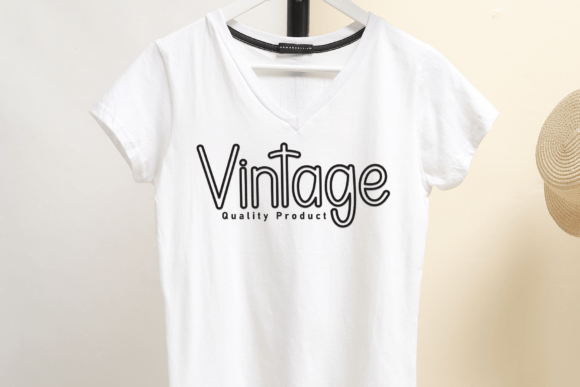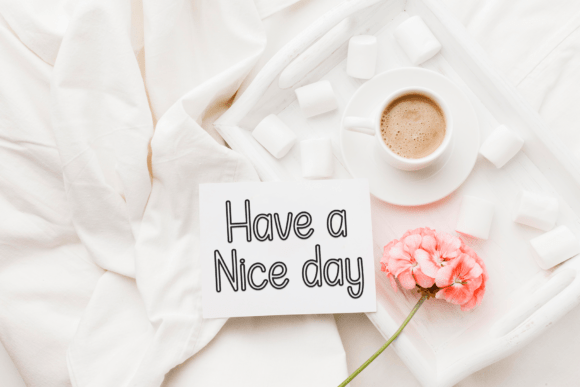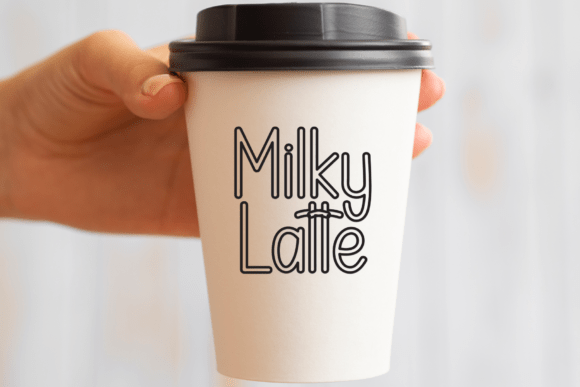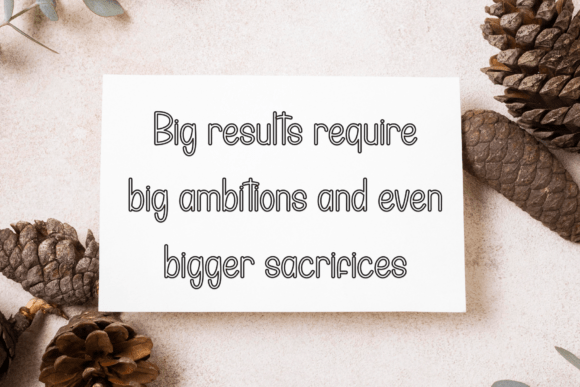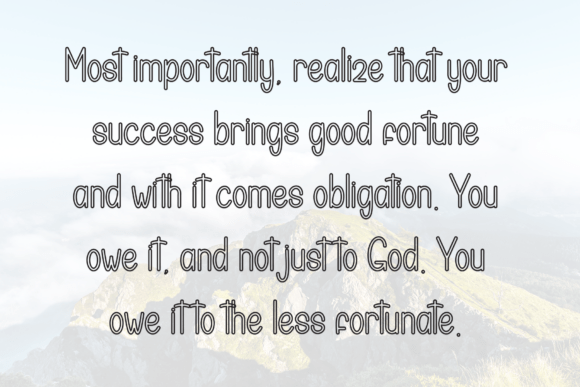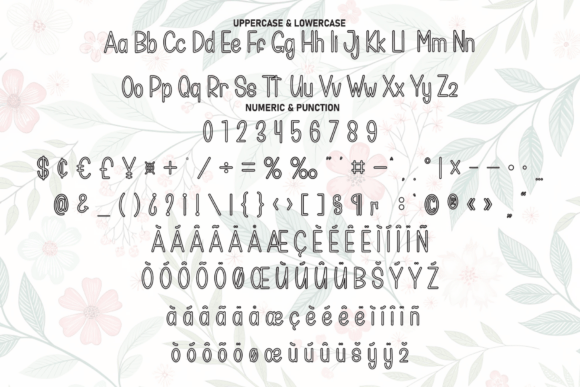
Beautiful Alphabet Font: Adding a Touch of Whimsy to Your Designs
Are you tired of using the same old fonts in your designs? Look no further! Our beautiful alphabet font is here to add a touch of whimsy and charm to your creations. Introducing the cheerful warmth of our delightful, handwritten display font, perfect for wedding invites, greeting cards, and any other design that needs a playful and joyous touch.
Handwritten fonts have a way of adding a personal touch to any design. They evoke feelings of warmth, friendliness, and approachability. Our beautiful alphabet font is no exception. With its stylishly sweet personality shining through every curve and stroke, this font is sure to elevate your artistry and leave a memorable impression on your audience.
Perfect for Wedding Invites and Greeting Cards
Wedding invites and greeting cards are special occasions that call for a font that is both elegant and playful. Our beautiful alphabet font is perfect for these occasions, adding a sprightly and friendly flair to your designs. Imagine sending out wedding invites that set the tone for a joyful and celebratory wedding, or greeting cards that bring a smile to the recipient’s face. This font is sure to make your designs stand out and leave a lasting impression.
Adding a Playful Touch to Your Designs
Our beautiful alphabet font is not just limited to wedding invites and greeting cards. It can be used in a variety of designs, from party invitations to social media graphics, to add a playful and joyous touch. The font’s whimsical charm is sure to infuse delightful fun into all who bear witness to its beauty. Whether you’re a designer, crafter, or DIY enthusiast, this font is sure to become a favorite in your collection.
Key Features of Our Beautiful Alphabet Font
- Delightful, handwritten display font
- Cheerful warmth and charming personality
- Perfect for wedding invites, greeting cards, and other special occasions
- Stylishly sweet personality shines through every curve and stroke
- Adds a sprightly and friendly flair to your designs
- Whimsical charm is sure to infuse delightful fun into your designs
Tips for Using Our Beautiful Alphabet Font
Here are a few tips for using our beautiful alphabet font in your designs:
- Use it as a headline font to add a touch of whimsy to your design
- Pair it with a simpler font for a contrasting look
- Use it to add a personal touch to your designs
Our beautiful alphabet font is a versatile and charming addition to any design. With its cheerful warmth, stylishly sweet personality, and whimsical charm, this font is sure to elevate your artistry and leave a memorable impression on your audience. Whether you’re a designer, crafter, or DIY enthusiast, this font is sure to become a favorite in your collection. So why wait? Download our beautiful alphabet font today and start adding a touch of whimsy to your designs!